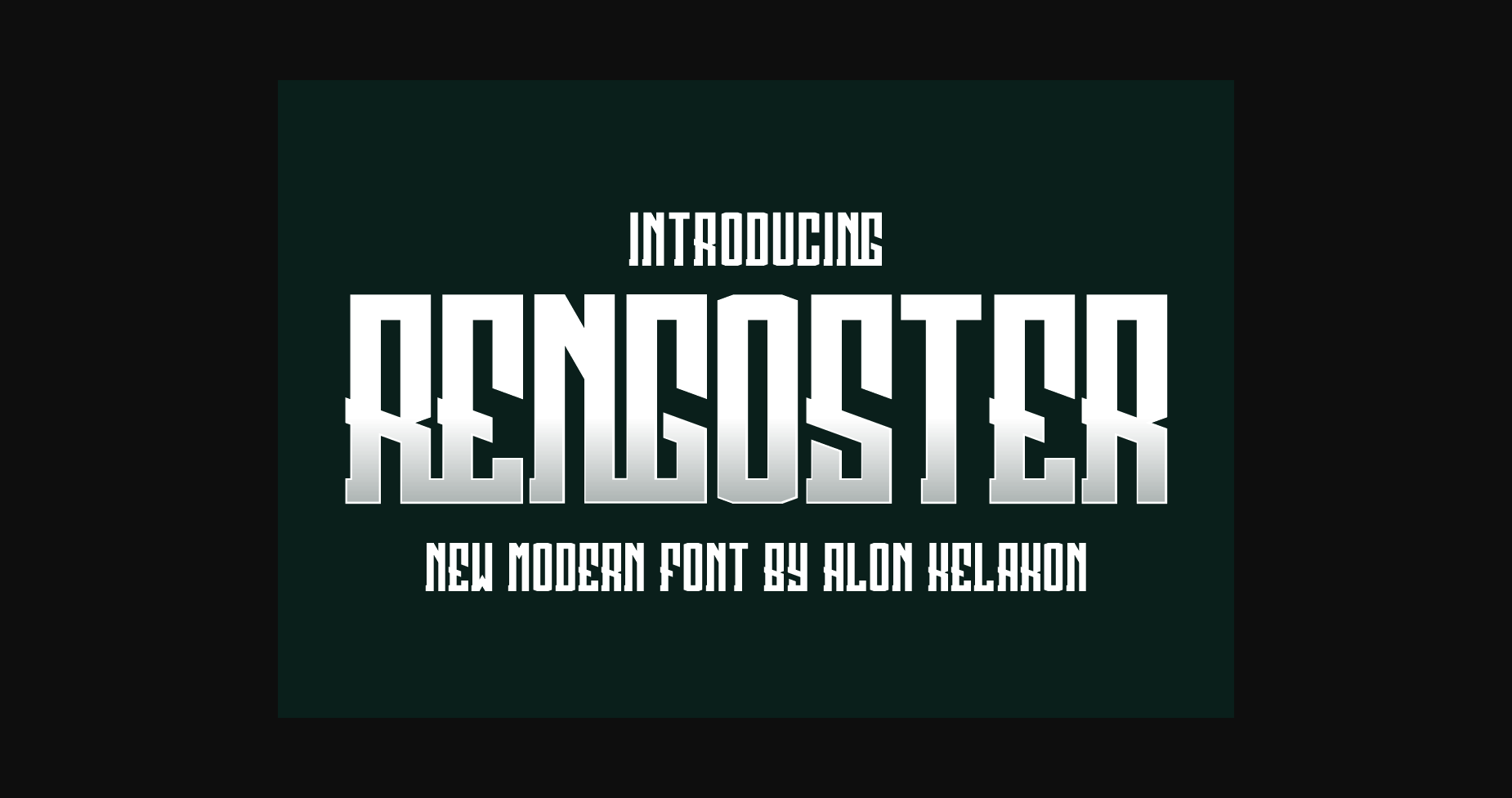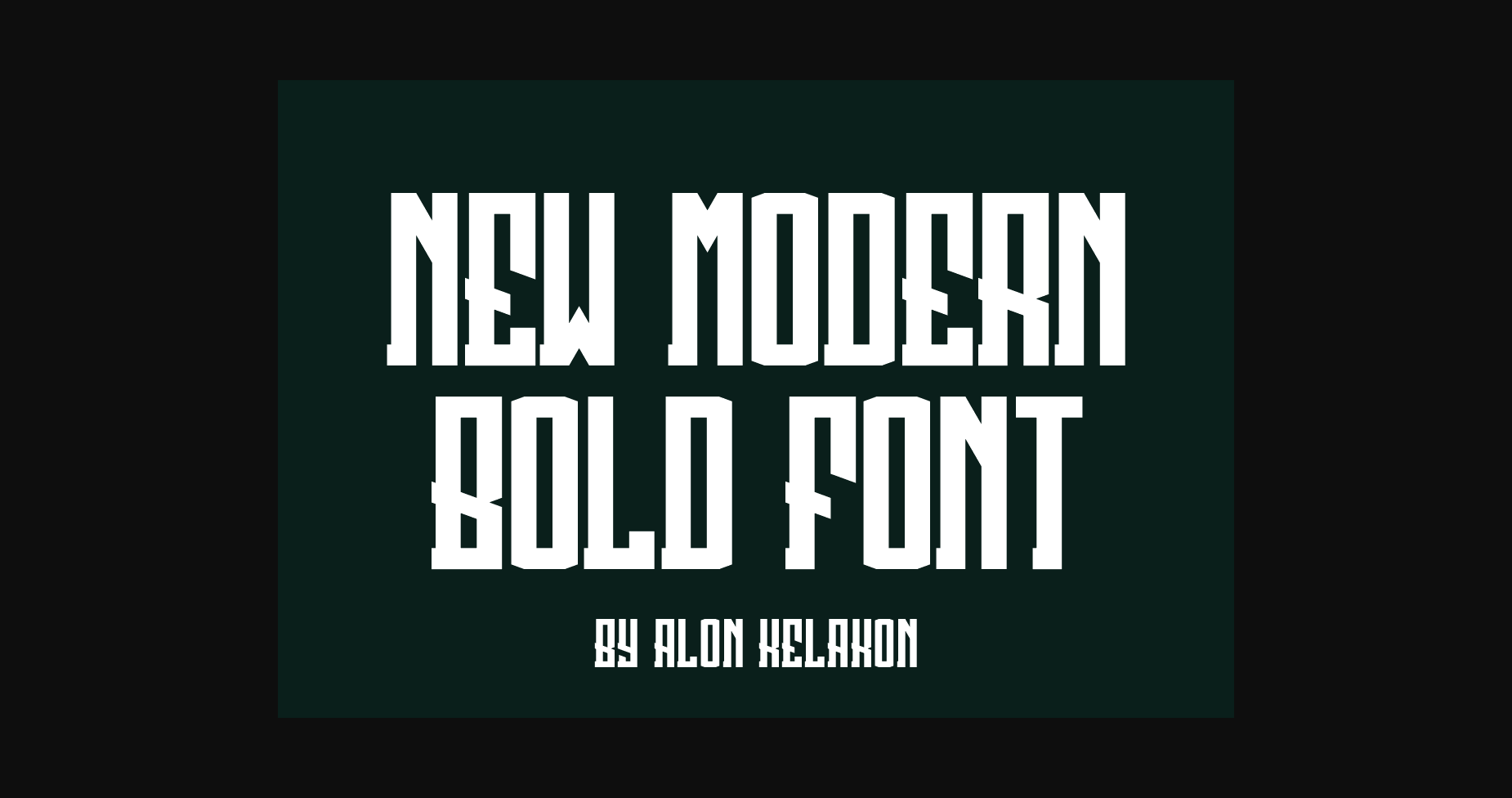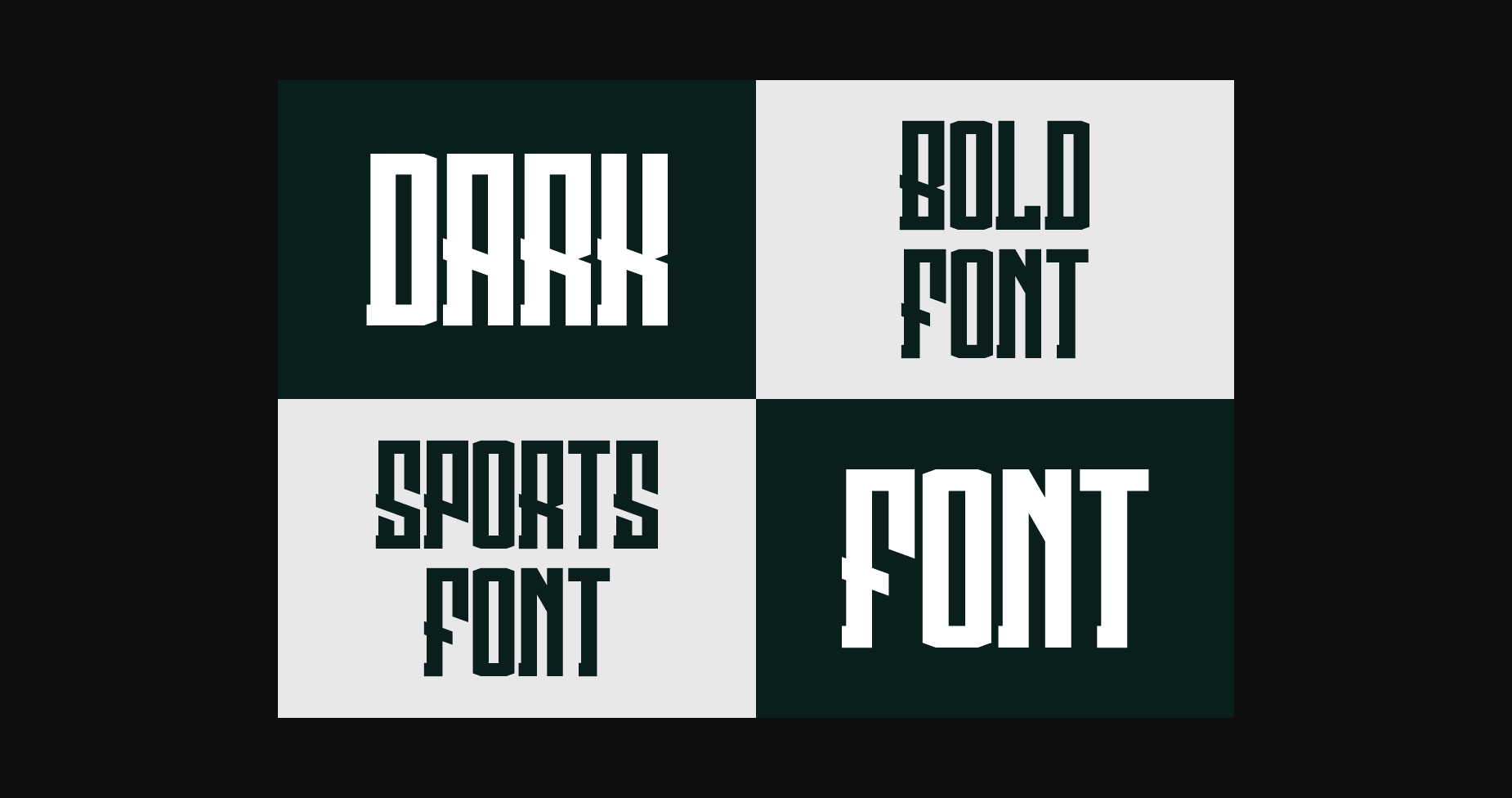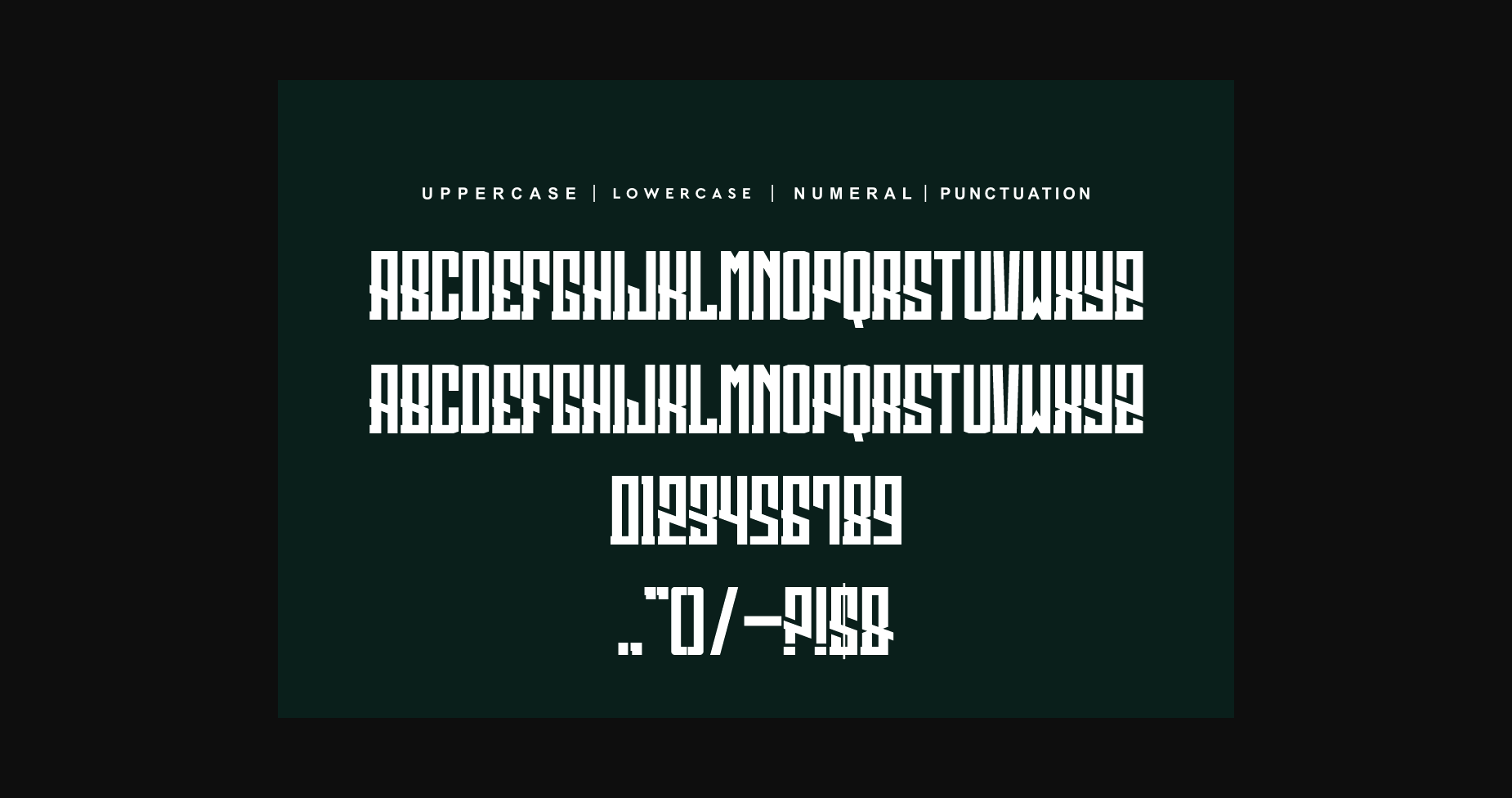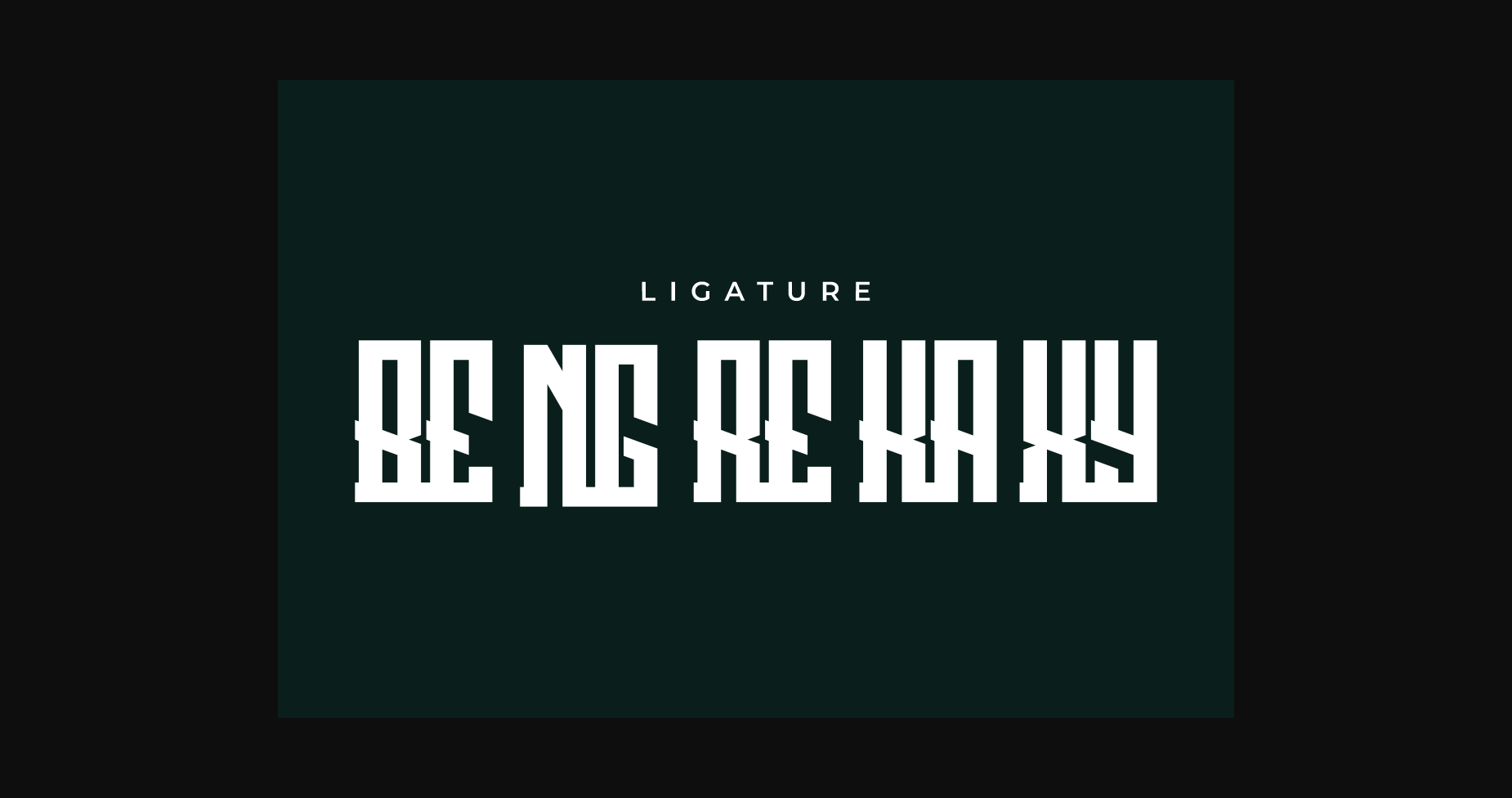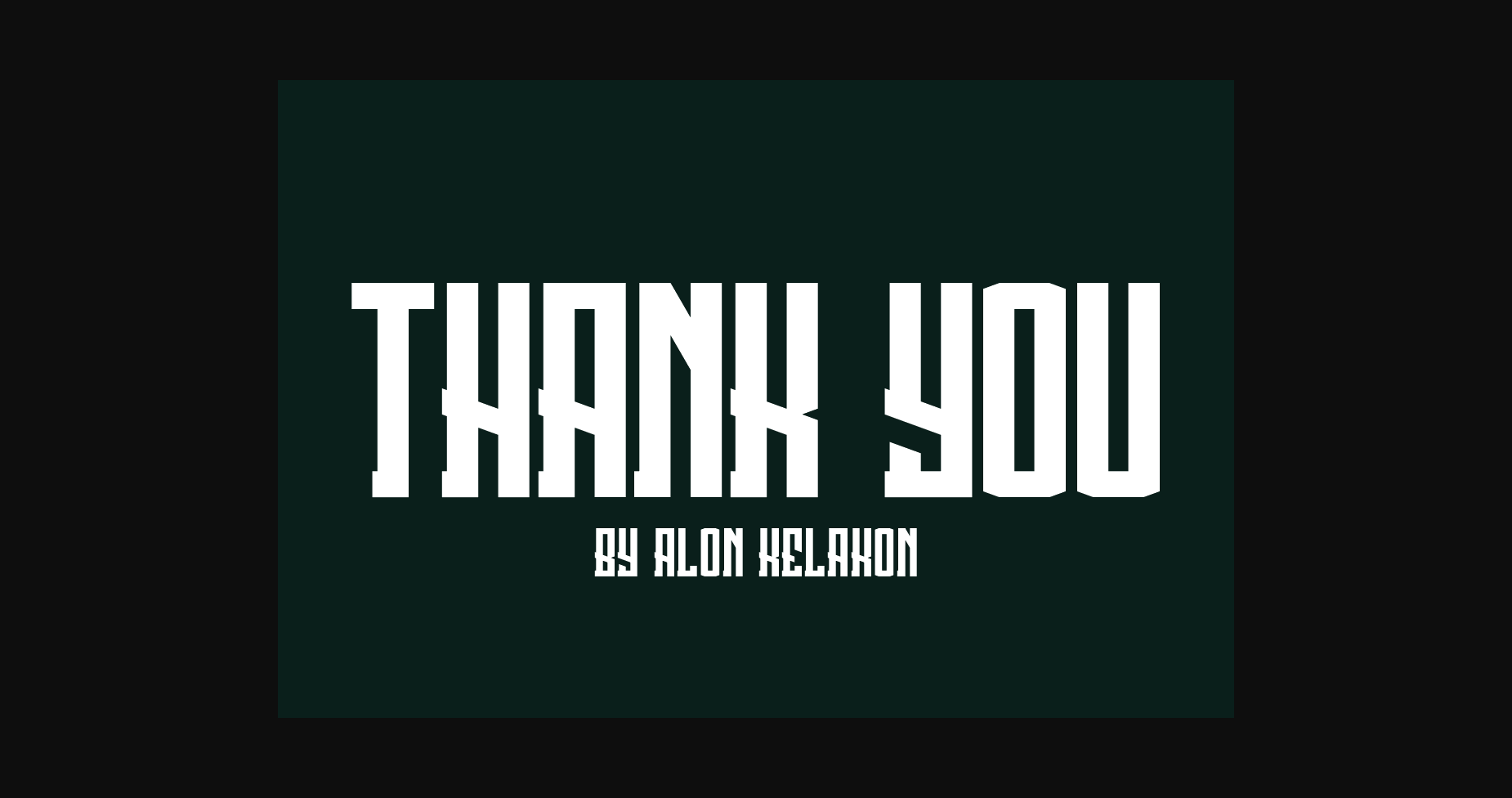
HomeSans Serif FontsRengoster Font Sans Serif Fonts Rengoster Font FacebookXPinterestWhatsApp 1 of 8 ... Rengoster Font Poster 2... Rengoster Font Poster 3... Rengoster Font Poster 4... Rengoster Font Poster 5... Rengoster Font Poster 6... Rengoster Font Poster 7... Rengoster Font Poster 8... About Rengoster Font is a unique and modern font that can easily be matched to an incredibly large set of projects, so add it to your creative ideas and notice how it makes them stand out! DOWNLOAD NOW People also explored School Saybrox Font Elf Font Winter Font Nutmeg Script Font Fantasy Script 3 Font Study Calligraphy Font Vogue Font Parisand Font 320 0 TagsRengoster Font Previous articleSymbols FontNext articleSport Sobenor Font LEAVE A REPLY Cancel reply Comment: Please enter your comment! Name:* Please enter your name here Email:* You have entered an incorrect email address! Please enter your email address here Website: Save my name, email, and website in this browser for the next time I comment. Personal Use Free Bosk Personal Use Free Read more about this font I Am Exceptional Personal Use Free Read more about this font Bamboomoe Personal Use Free Read more about this font Blue Highway Personal Use Free Read more about this font BLOG How to Install and Use Fonts on Windows, macOS, and Web Projects How to Install and Use Fonts on Windows, macOS, and Web Projects Fonts are a crucial part of design and branding. Whether you’re designing a... Top 10 Handwritten Fonts That Elevate Your Designs How to Cut Any Font on Cricut: Convert a Font to SVG (Free) Modern Sans-Serif Fonts That Brands Love in 2025